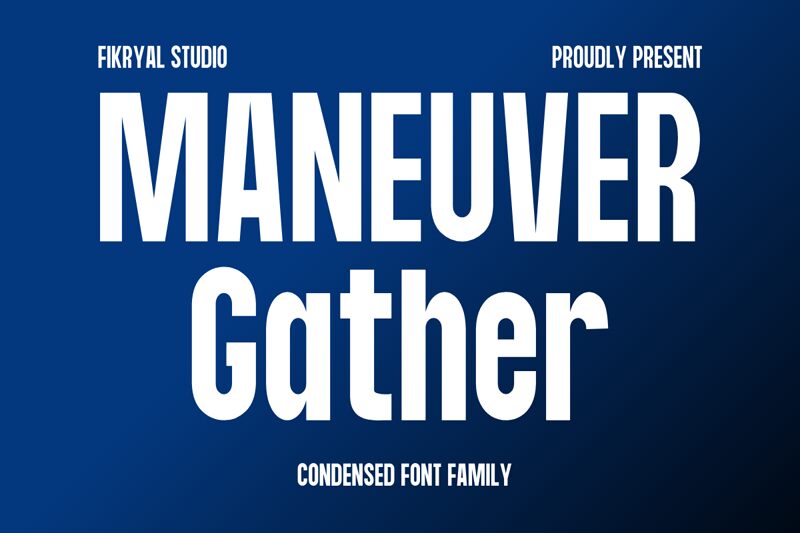
Maneuver Gather Italic
Maneuver Gather Italic font by Muhamad Fikry Nuralif of Fikryal Studio is a free italic sans serif font from the Maneuver Gather family, shaped like it’s already in motion. Its tall, condensed forms and sharp forward slant feel crisp and aerodynamic—more race-day banner than quiet paragraph text. The weight sits confidently without getting clunky, so headlines stay punchy even in tight spaces.
Using Maneuver Gather Italic, your words pick up instant speed on sports branding, automotive graphics, esports teams, streetwear prints, event posters, social ads, and tech product banners. Give it a little extra line spacing and let the slant breathe. Pair this free font with a calm, upright sans for body copy to keep the energy focused.